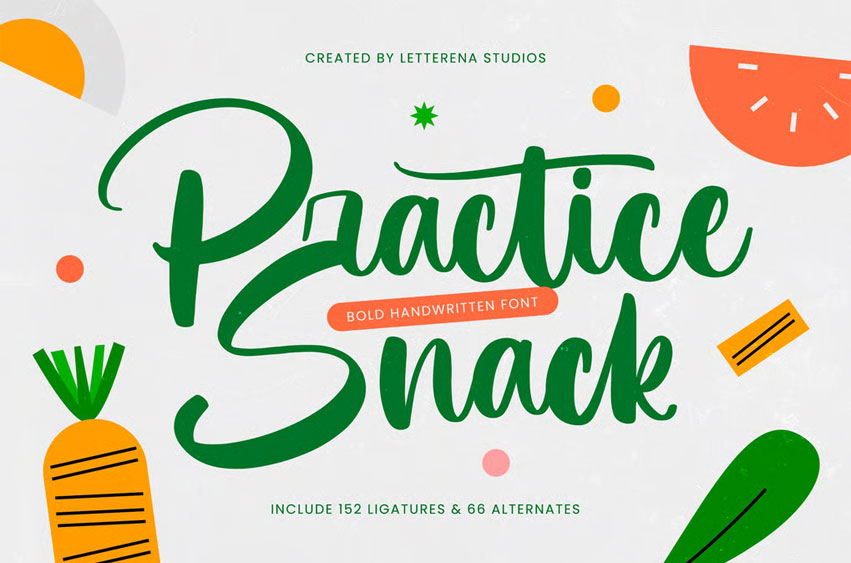
Practice Snack Font
Practice Snack Font is suitable to complement your digital and printed creative products. This font is perfect for posters, social media posts, branding, personal projects, etc.